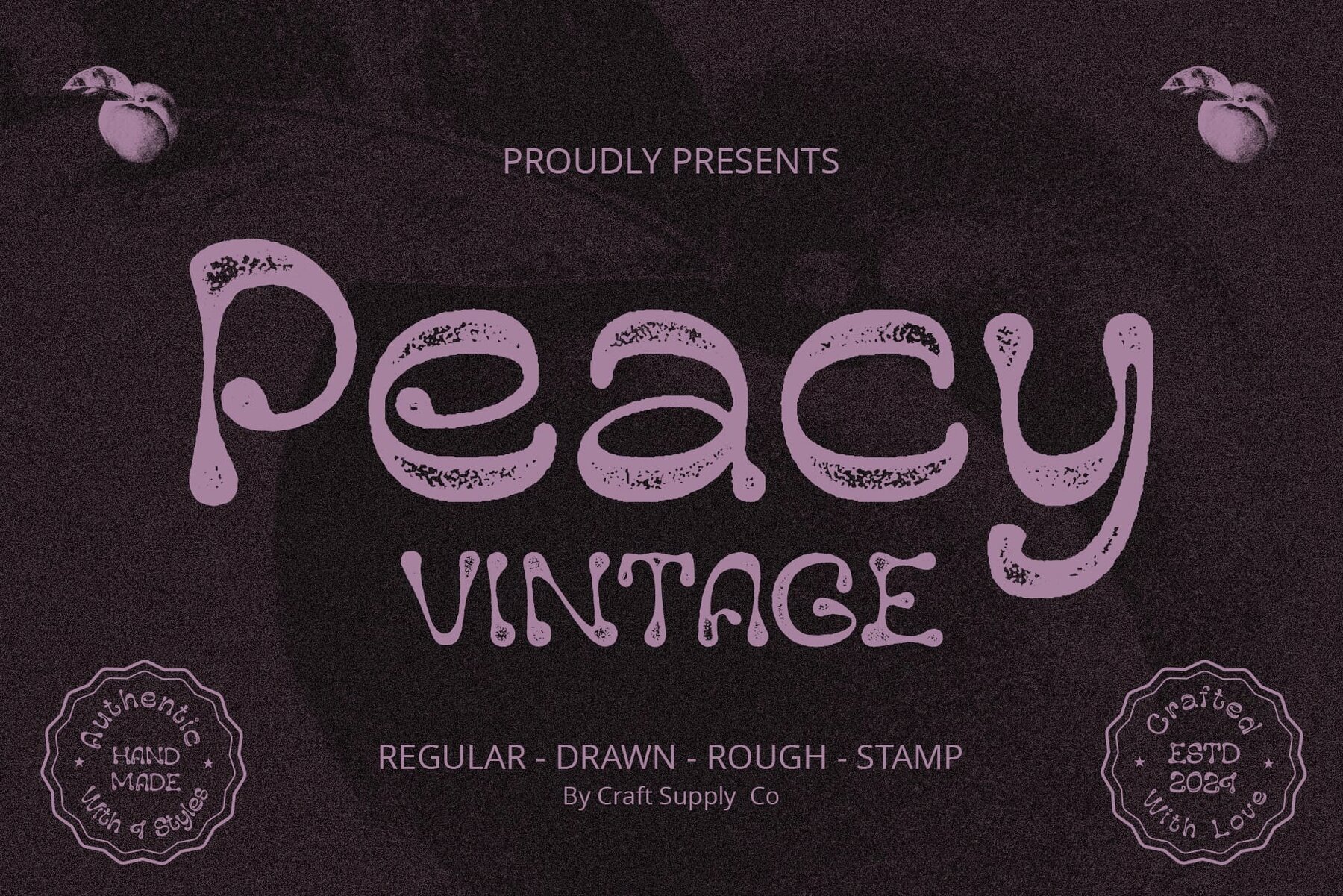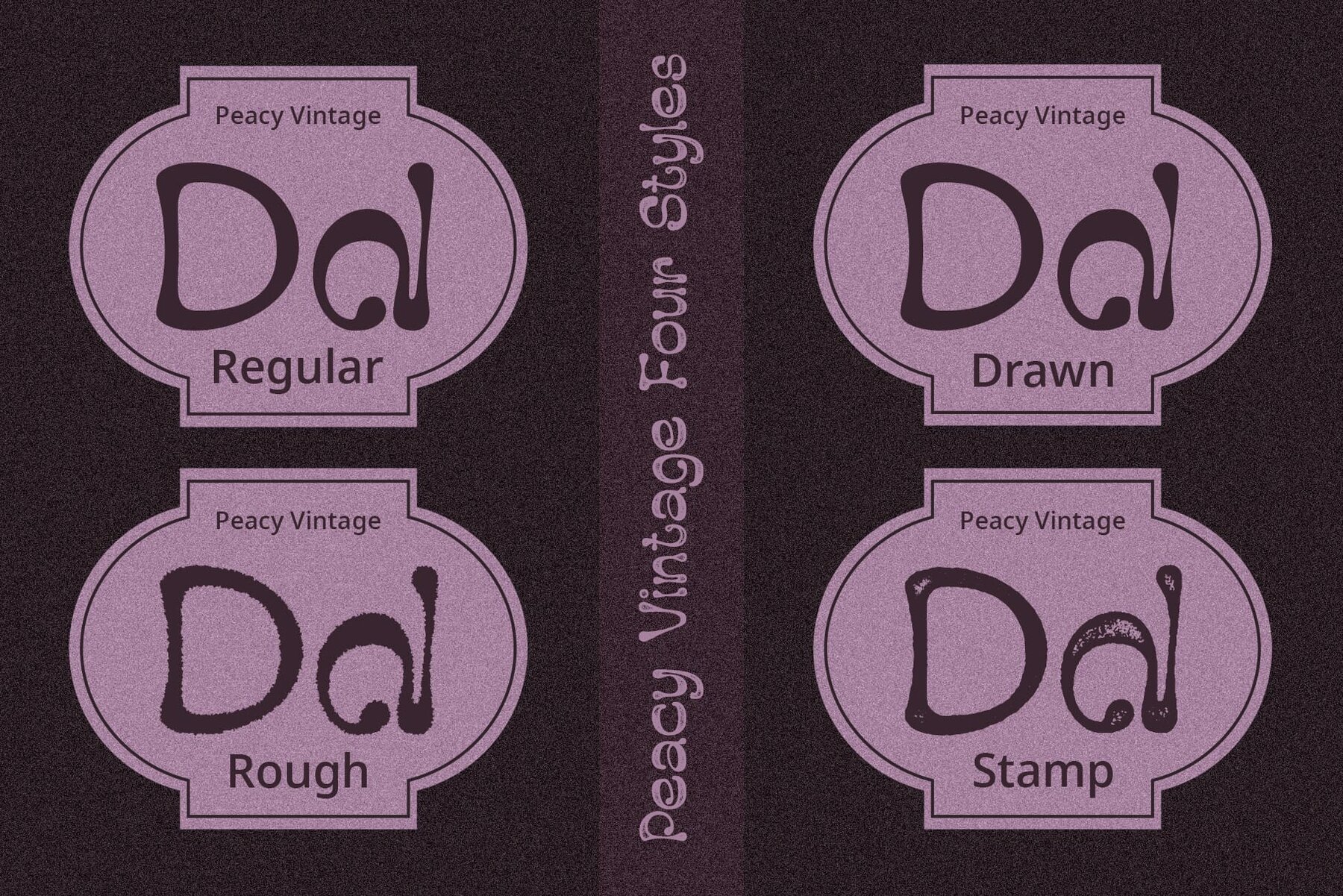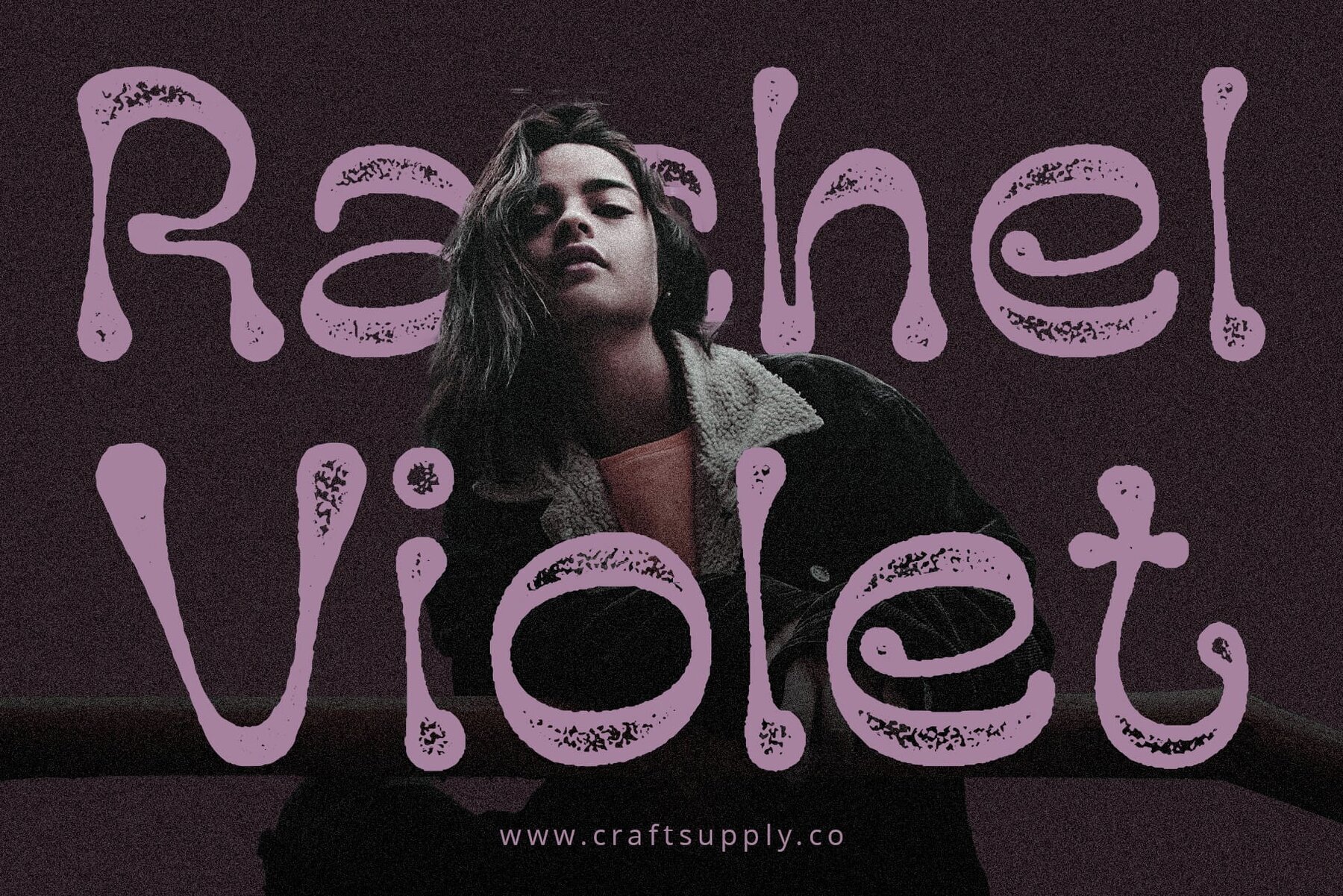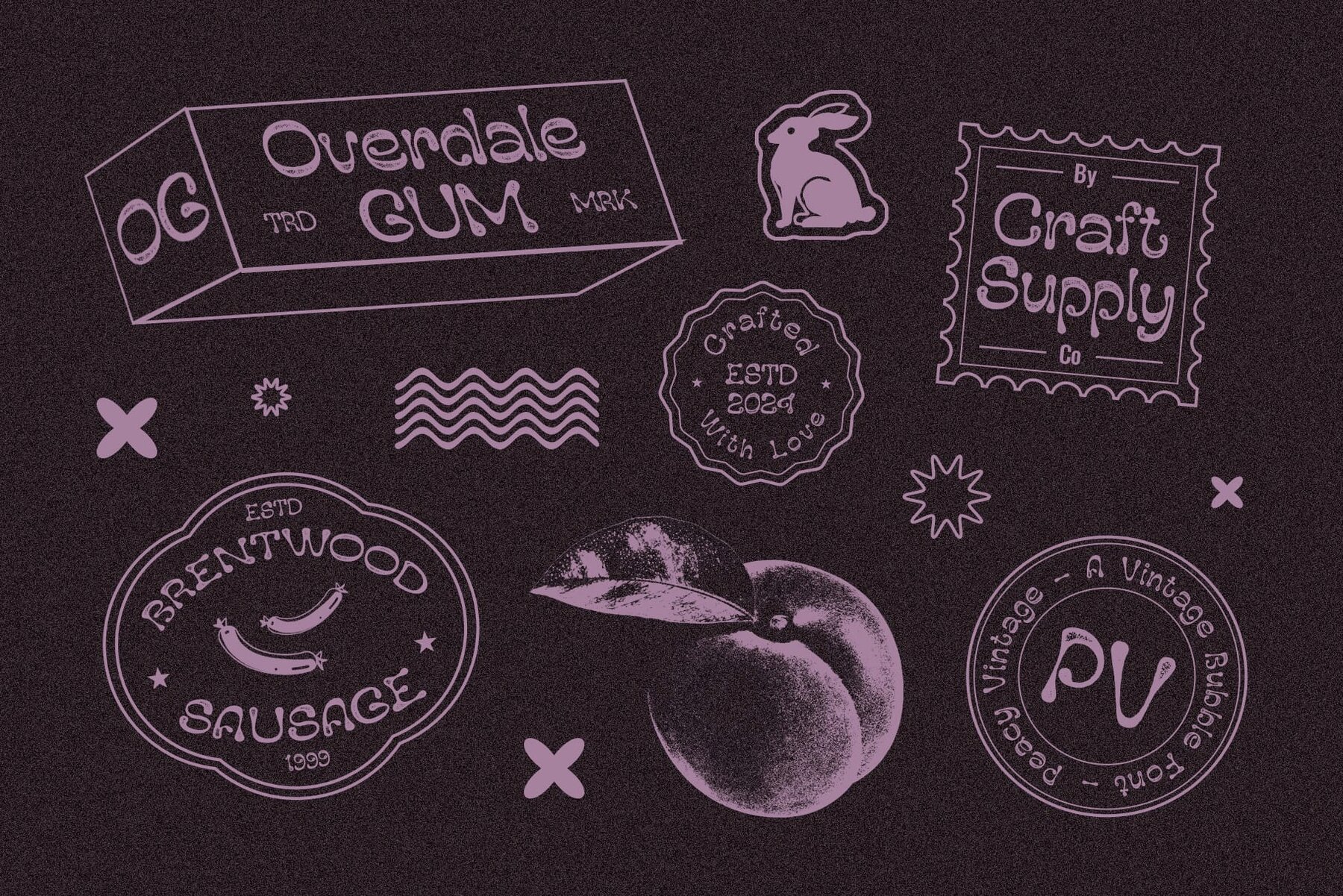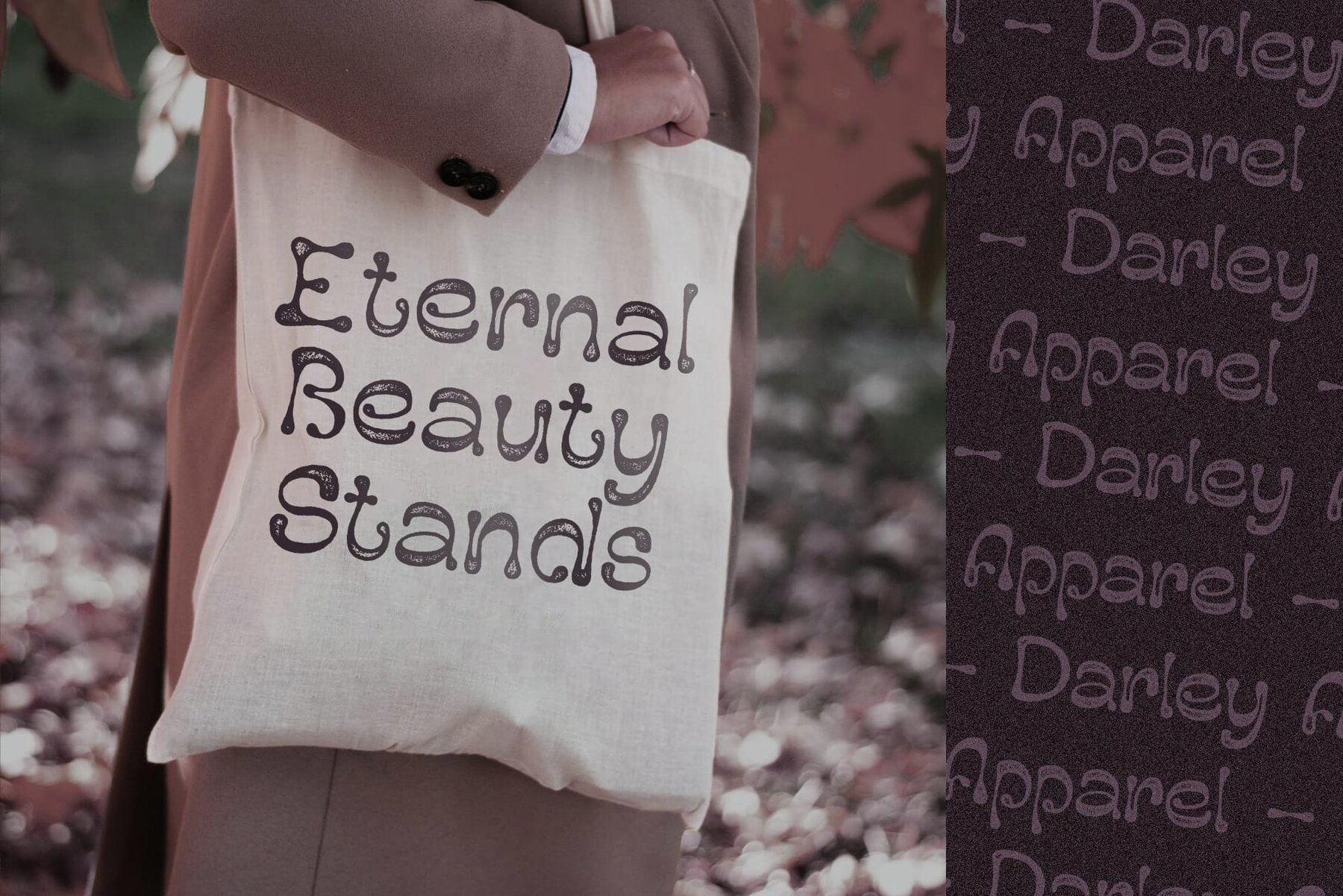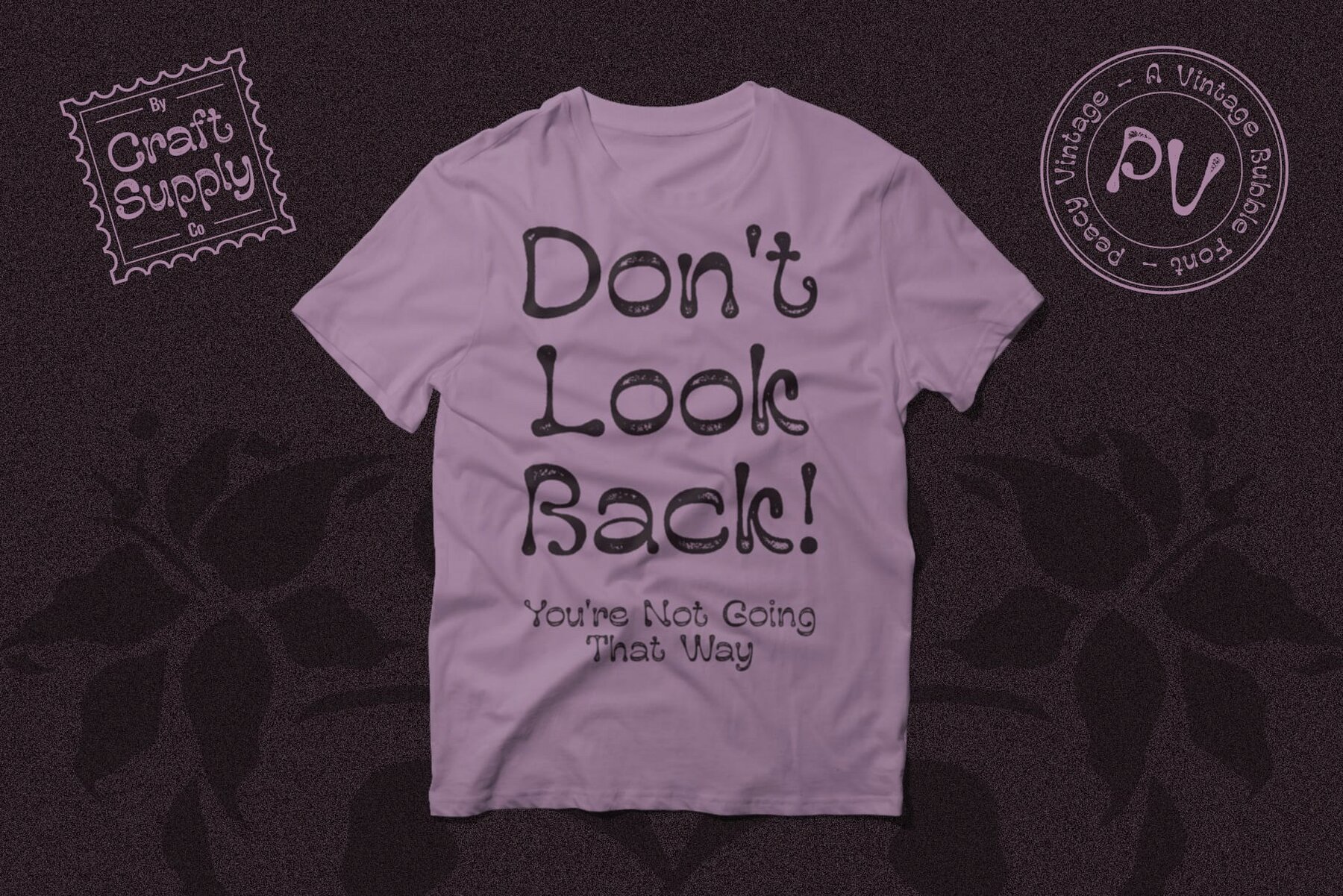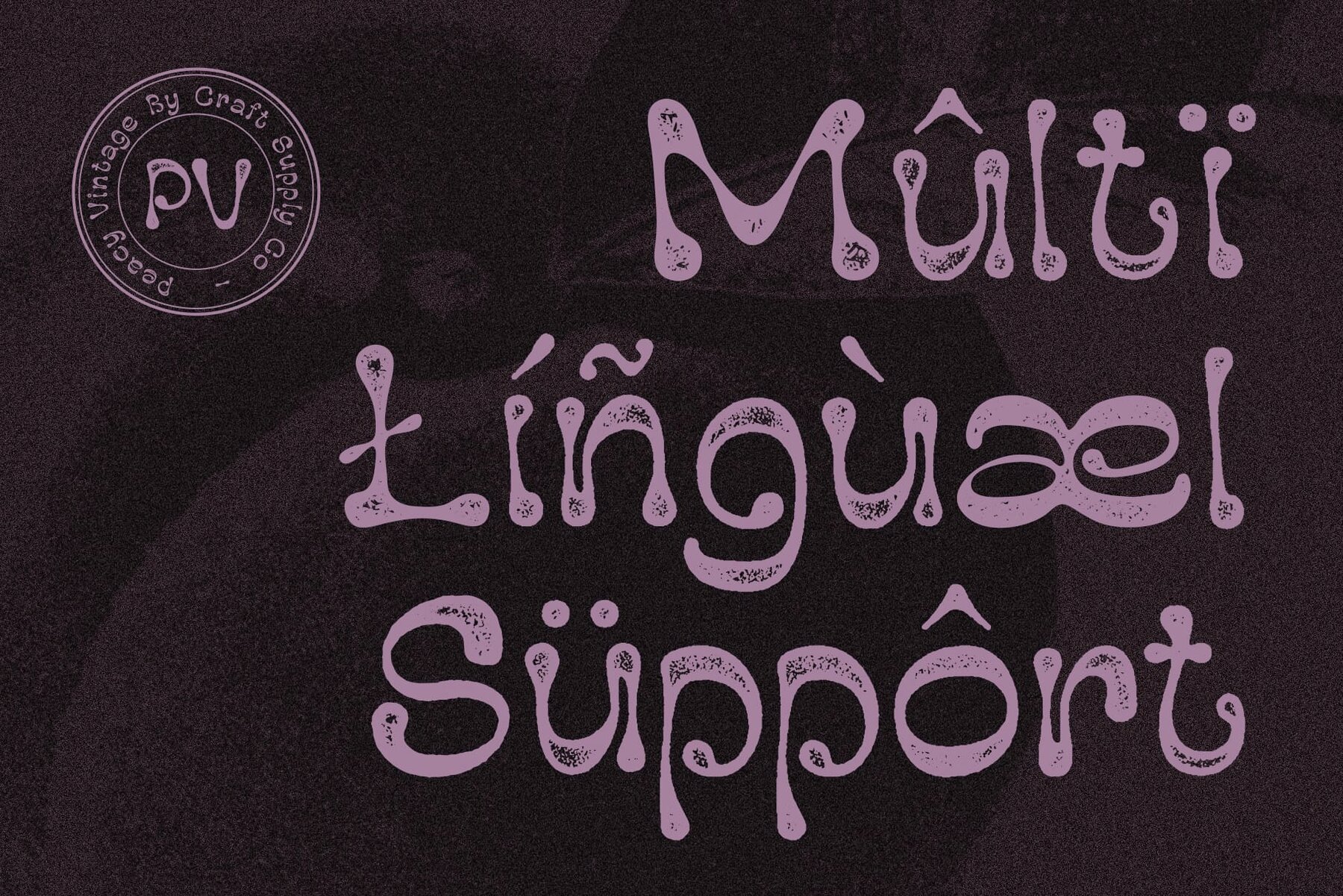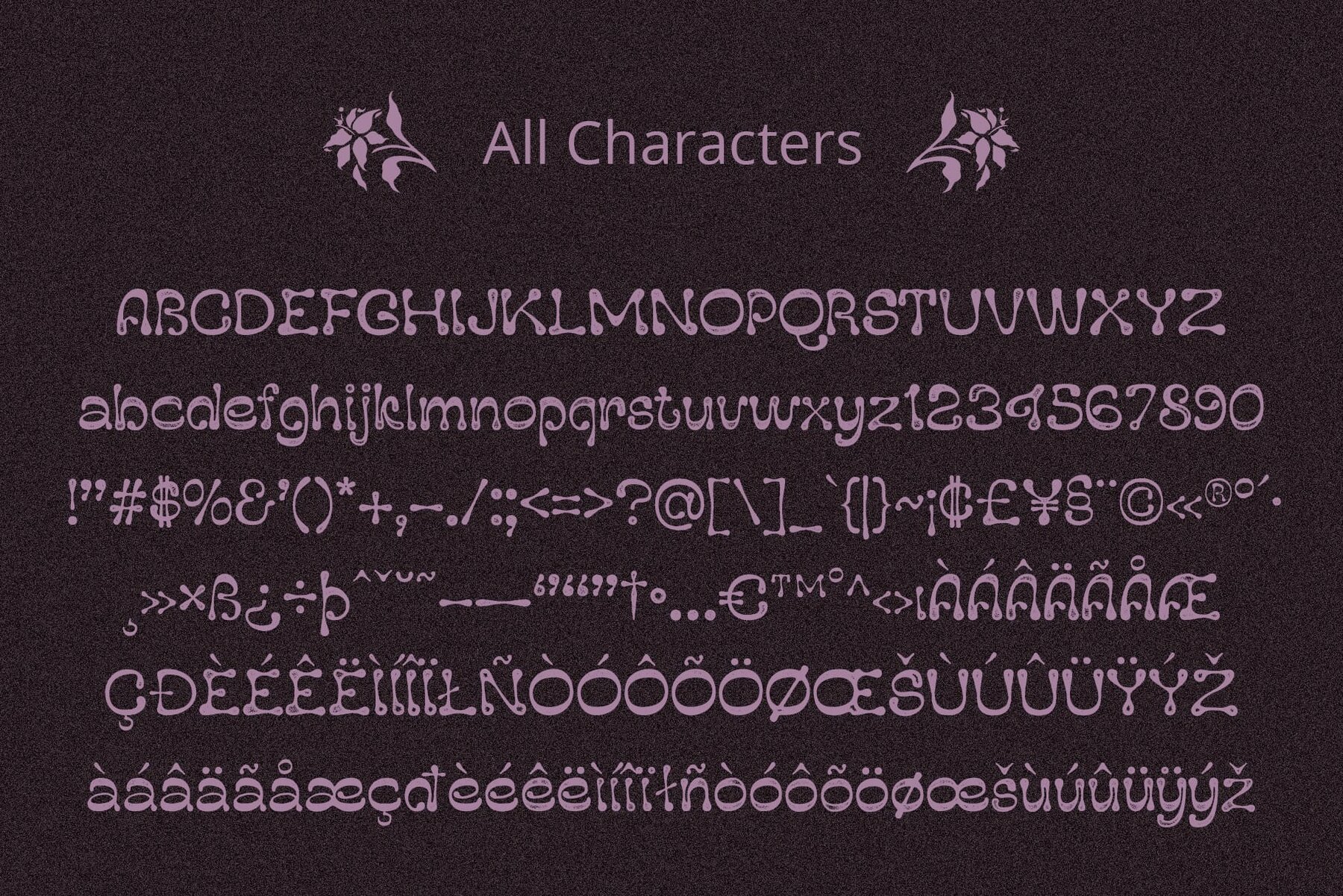
Peacy Vintage Font
Peacy Vintage introduces a captivating display font that blends nostalgic charm with a contemporary twist through its bubble-shaped design. This whimsical typography embodies the essence of vintage styles, offering a unique character to modern projects. The Peacy Vintage font merges bubble-shaped elegance with a grungy finish, evoking nostalgia. This versatile design enriches creative projects with vintage charm and a playful aesthetic. No specialized software is required to use this typeface. For inquiries or assistance, please get in touch. We appreciate your support in making your creative projects shine!Peacy Vintage: Retro Bubble Display Font